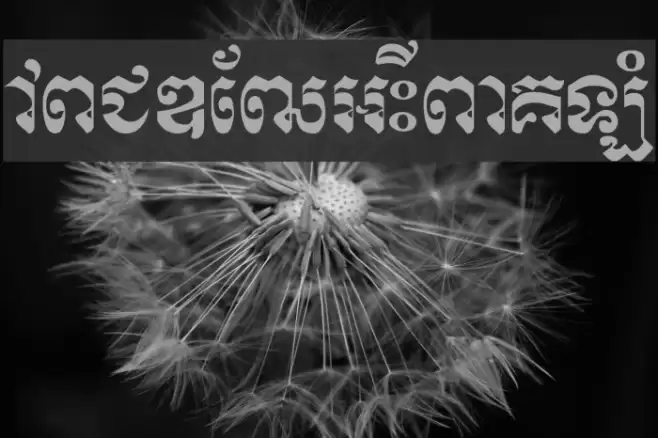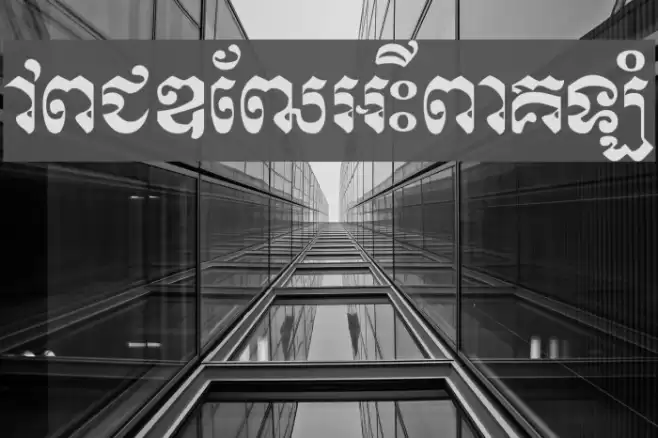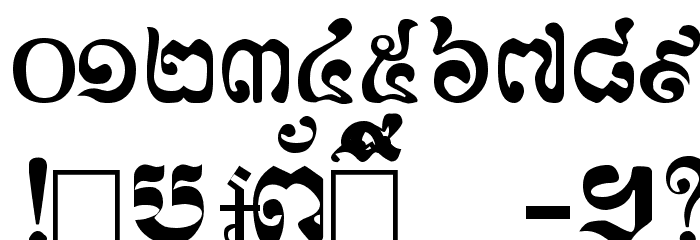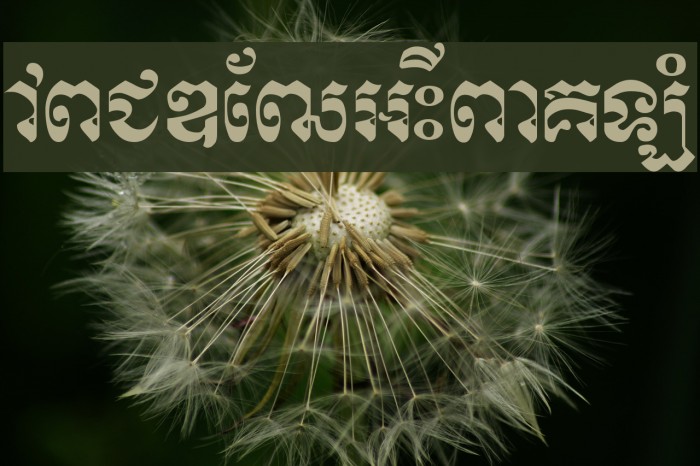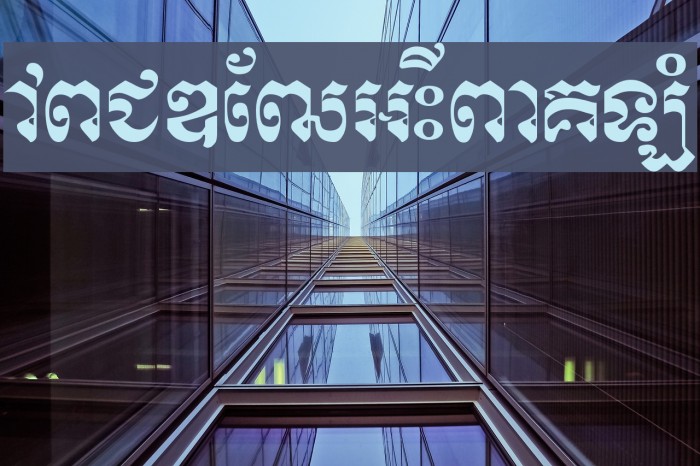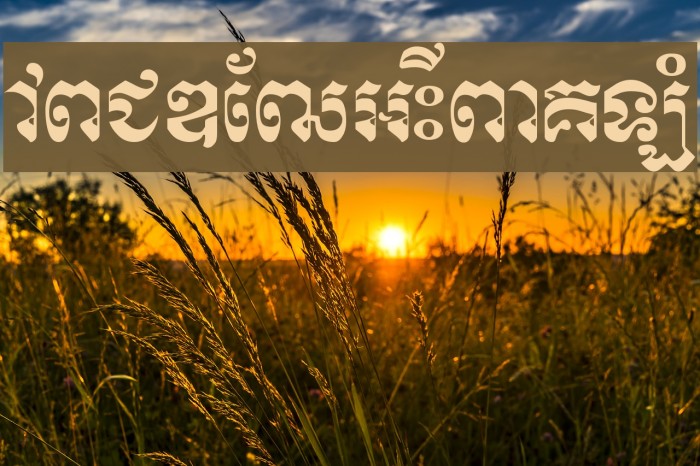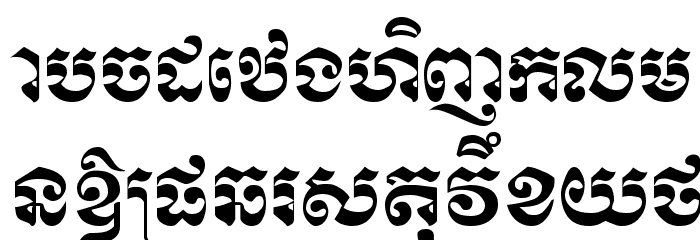
Kasskeo New Font
Kasskeo New Description
A bold, highly decorative script with strong, angular strokes and intricate details, featuring high contrast between thick and thin lines. The characters are ornate and stylized, evoking a traditional or cultural aesthetic with elaborate curves and flourishes.
A bold, decorative script with intricate, angular forms and high contrast from Asian fonts.
- Proposed Projects: Cultural event posters, branding for traditional products, display headlines, ceremonial invitations.
- Overall Style: Decorative, Traditional, Ornate
- Use Case: Headlines, Logos, Posters, Invitations